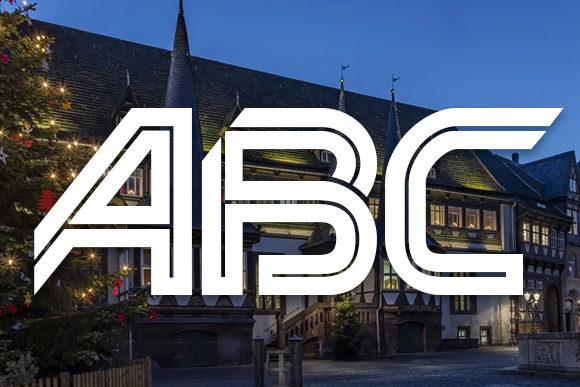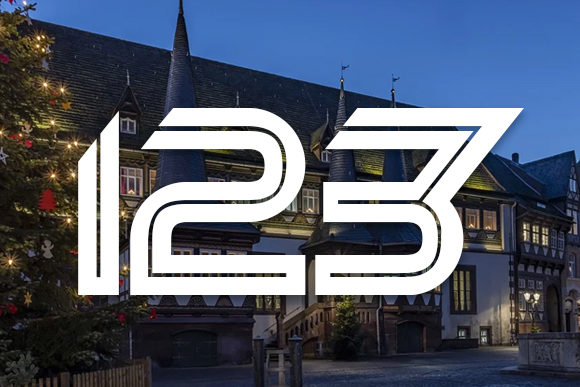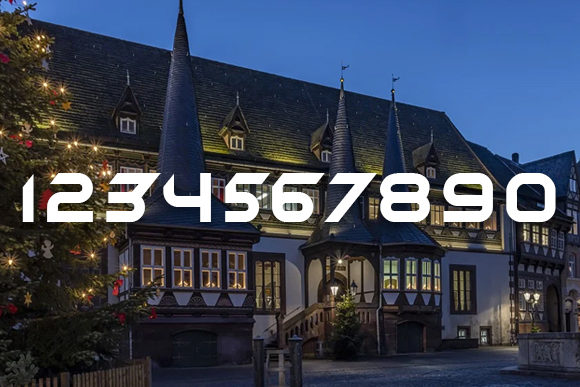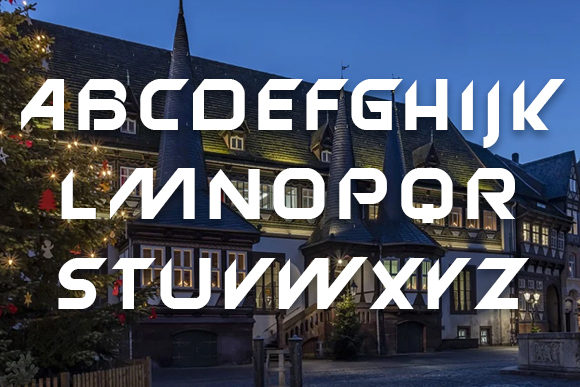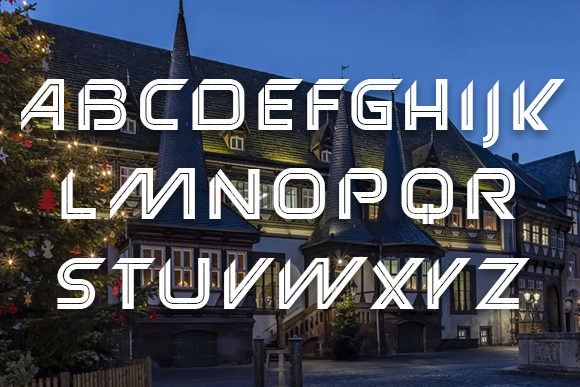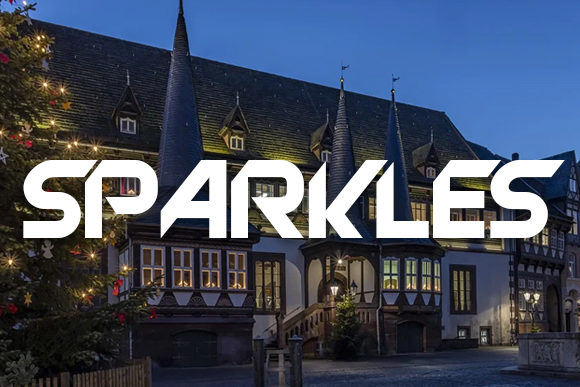
Introducing Anniversary Font: Elevate Your Designs with a Unique Techno Twist
Are you tired of using the same old fonts for your designs? Look no further! Anniversary Font is here to revolutionize the way you create. This awesome techno font comes in two stunning variants: Regular and Neon. With Anniversary Font, you can give your designs a unique feel that will make them stand out from the crowd.
What is Anniversary Font?
Anniversary Font is a modern, techno-inspired typeface designed to add a touch of excitement to your creations. Its sleek lines, futuristic curves, and bold presence make it perfect for a wide range of applications, from digital graphics to print materials. Whether you’re a designer, crafter, or simply a DIY enthusiast, Anniversary Font is an excellent addition to your font collection.
Key Features of Anniversary Font
- Regular and Neon Variants: Anniversary Font comes in two distinct styles, allowing you to choose the perfect look for your project. The Regular variant offers a clean, modern aesthetic, while the Neon variant adds a vibrant, eye-catching glow.
- Unique and Memorable: With its techno-inspired design, Anniversary Font is sure to leave a lasting impression on your audience. Its distinctive style will set your designs apart from the competition and make them more memorable.
- Highly Versatile: Anniversary Font can be used for a wide range of applications, including logos, headings, titles, posters, flyers, and more. Its flexibility makes it an excellent choice for designers and crafters who need a font that can adapt to different contexts.
- Easily Readable: Despite its futuristic design, Anniversary Font remains highly readable, even at smaller sizes. This makes it perfect for body text, captions, and other applications where legibility is crucial.
How to Use Anniversary Font in Your Designs
Using Anniversary Font in your designs is easy! Here are a few ideas to get you started:
- Create Eye-Catching Logos: Use Anniversary Font to create bold, memorable logos that will help your brand stand out.
- Design Stunning Posters: Anniversary Font is perfect for poster design, adding a touch of excitement and energy to your message.
- Add a Futuristic Touch to Your Website: Use Anniversary Font to create headings, titles, and other UI elements that will give your website a modern, techno-inspired look.
- Craft Unique Social Media Graphics: Anniversary Font is ideal for creating social media graphics that will help you connect with your audience and stand out in a crowded feed.
Tips and Tricks for Getting the Most Out of Anniversary Font
To get the most out of Anniversary Font, here are a few tips and tricks to keep in mind:
- Experiment with Color: Anniversary Font looks great in a range of colors, so don’t be afraid to experiment and find the perfect hue for your design.
- Mix and Match: Combine Anniversary Font with other fonts to create a unique, layered look that adds depth and interest to your design.
- Pay Attention to Kerning: As with any font, kerning is crucial to creating a clean, professional look. Make sure to adjust the kerning to suit your design.